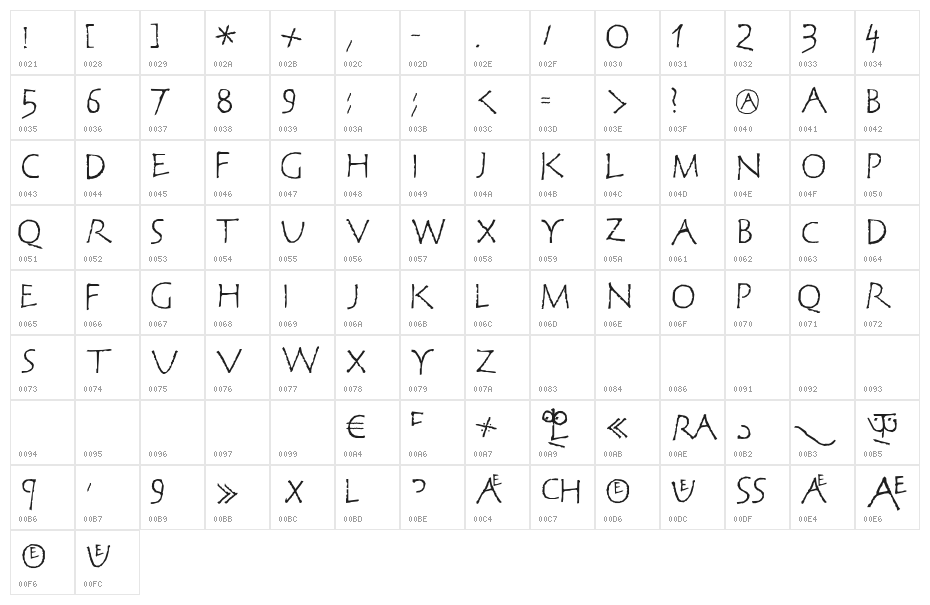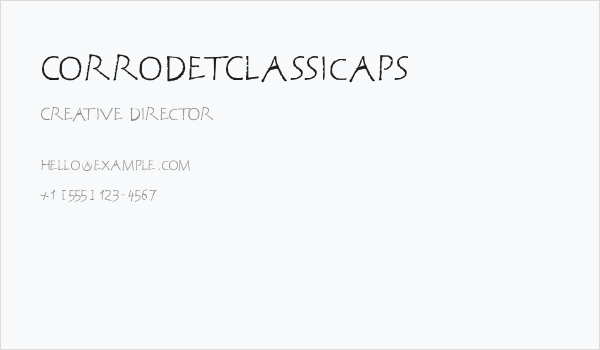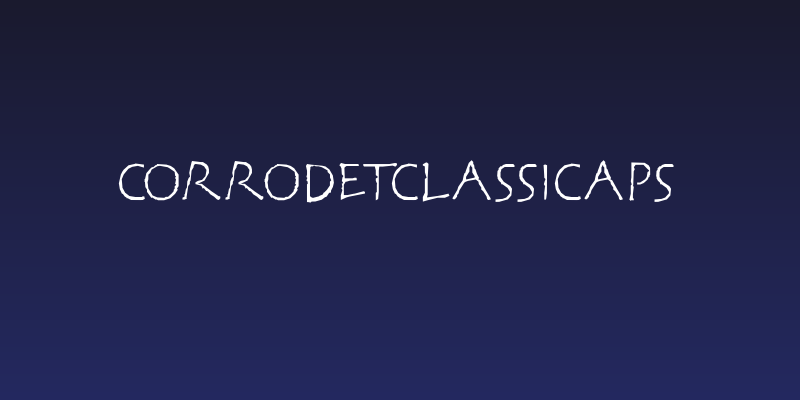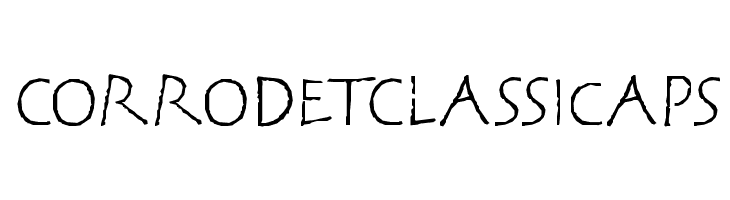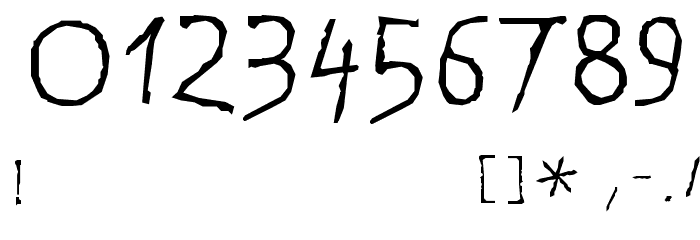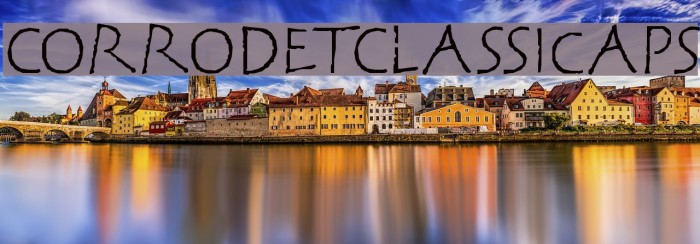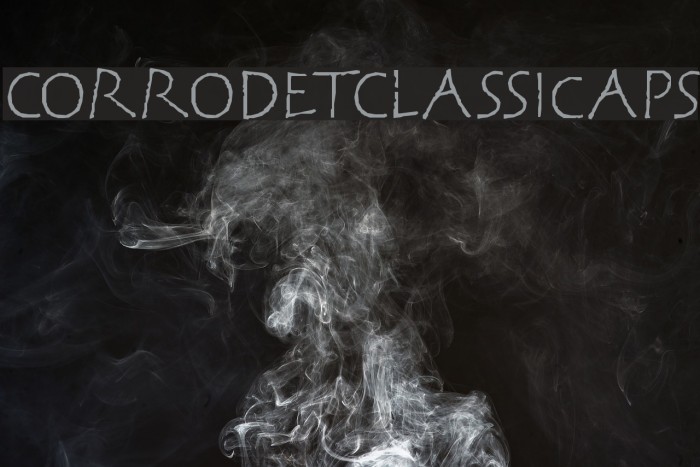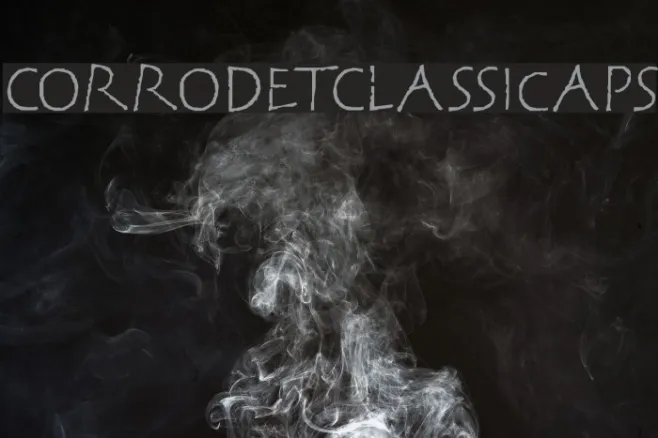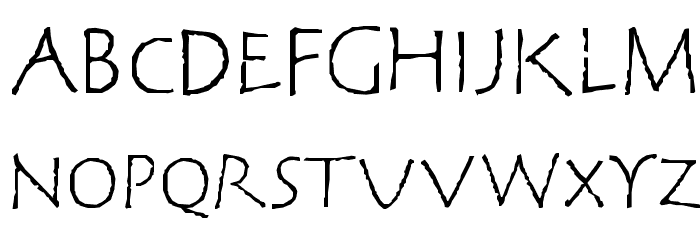
CorrodetClassicaps Font
CorrodetClassicaps Description
This font features a rugged, hand-drawn style with uneven strokes and a slightly distressed appearance. The characters have a unique, organic feel, reminiscent of ancient scripts or inscriptions. The uppercase letters are bold and prominent, while the lowercase letters maintain a consistent style with a slightly narrower form. Numbers and special characters follow the same aesthetic, adding to the font's cohesive look. The overall design is both artistic and legible, making it suitable for creative projects that require a touch of antiquity or a handcrafted vibe.
| Proposed Projects | Ideal for projects like historical posters, artistic book covers, themed event invitations, or any design that benefits from a handcrafted, vintage look. |